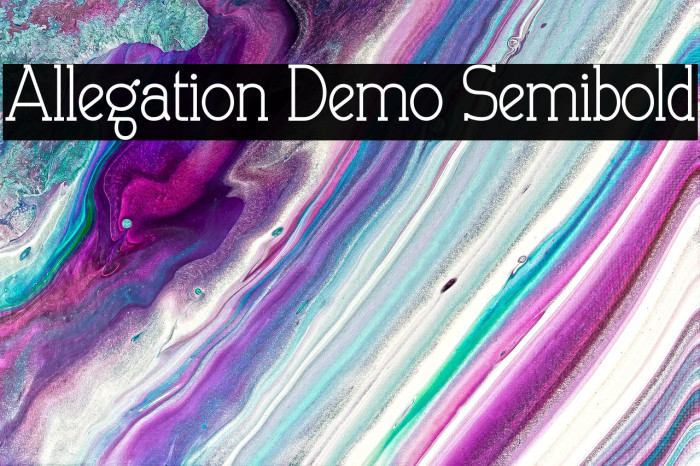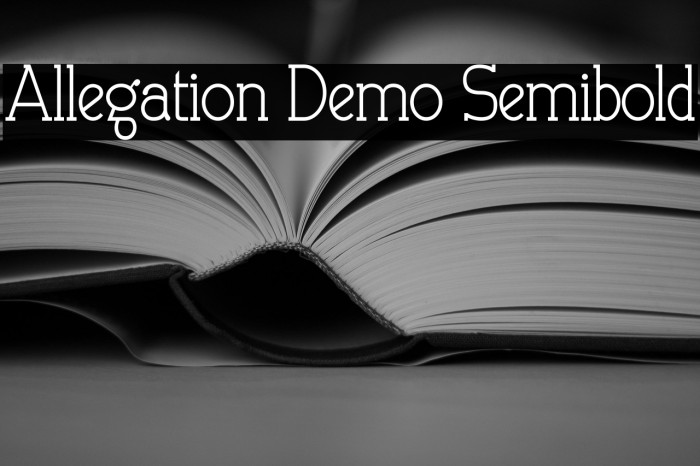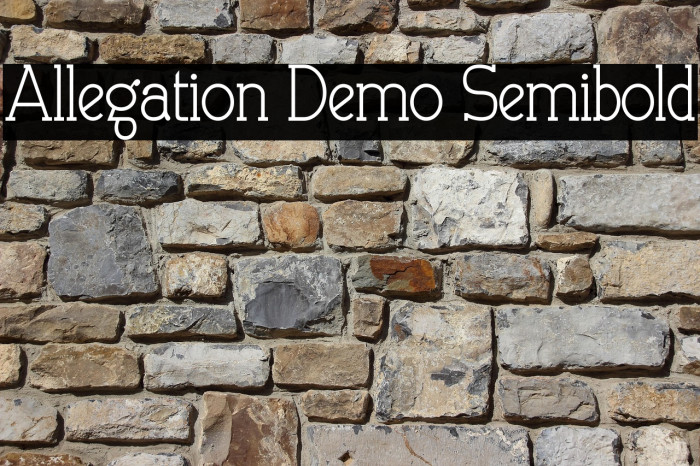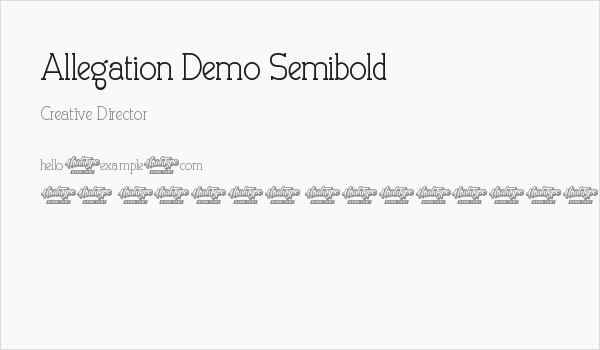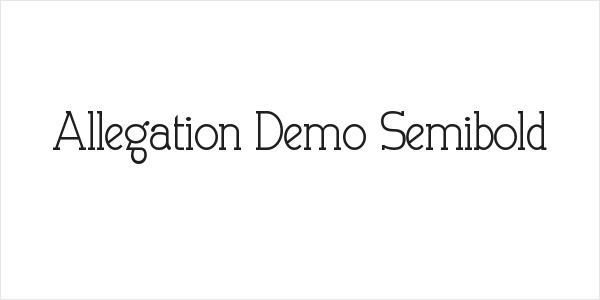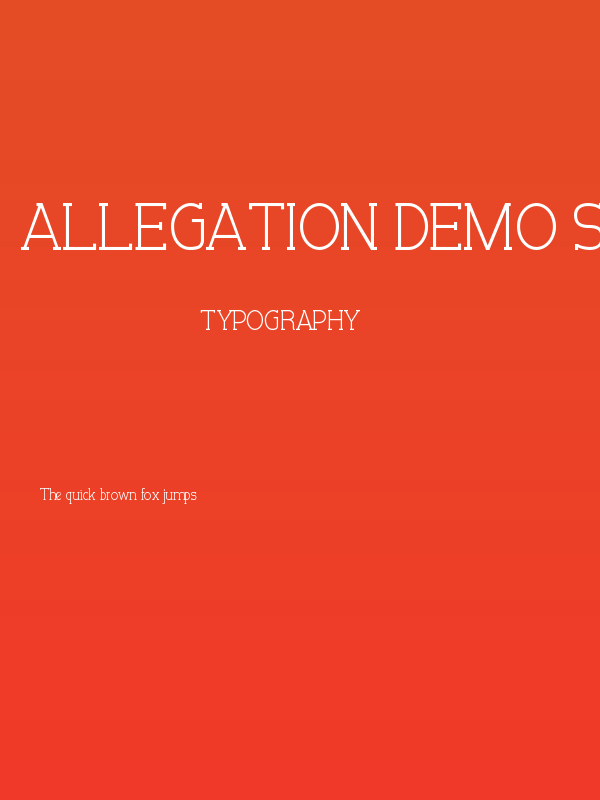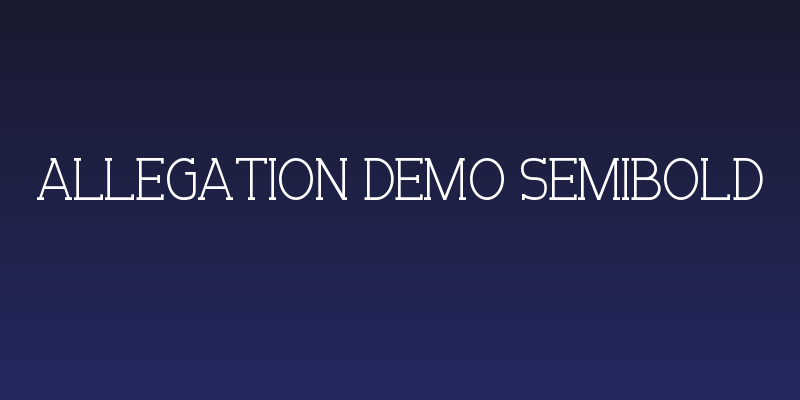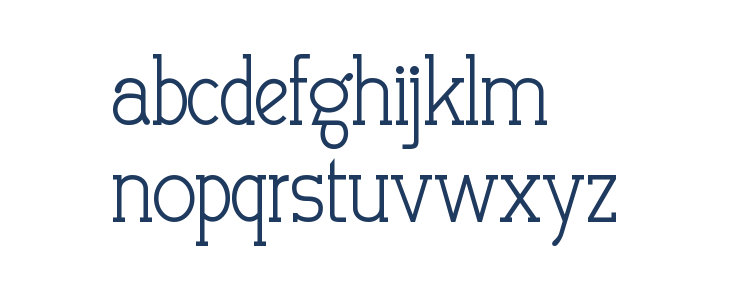
Allegation Demo Semibold Font
Allegation Demo Semibold Description
This font features a clean and modern design with a semi-bold weight, offering a balanced and professional appearance. The characters are well-defined with a slight geometric influence, providing a contemporary feel. The uppercase letters are tall and elegant, while the lowercase letters maintain a consistent and harmonious flow. The numerals are clear and easy to read, making them suitable for various applications. Special characters are included, adding versatility to the font's use. Overall, this font is ideal for projects that require a modern and sophisticated touch.